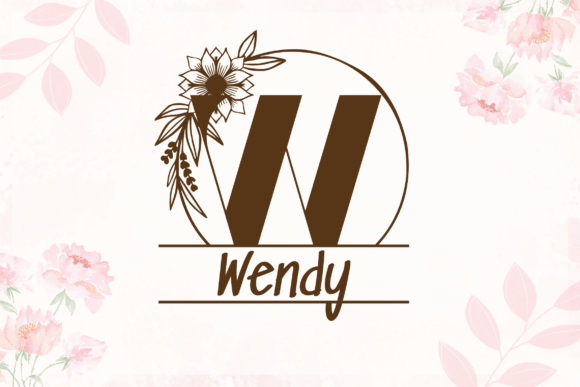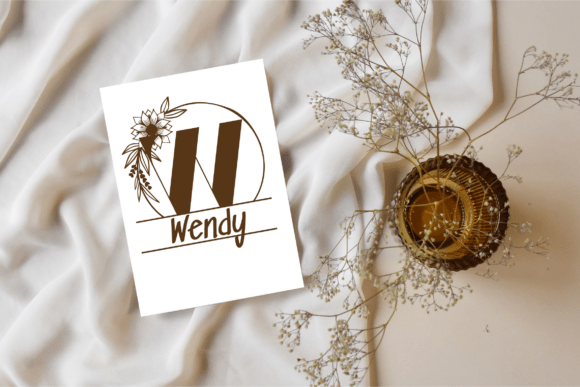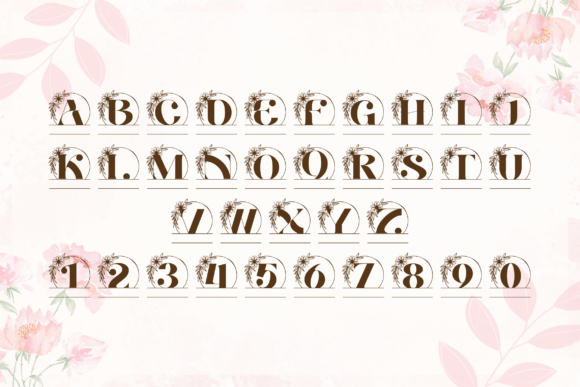
A Delicate Touch of Elegance: The Aventine Floral Line Monogram Font
As a designer, there’s a moment when you stumble upon a font that speaks to your creative soul. The lines are delicate, the details are intricate, and it’s as if the font is whispering your next great idea. For me, that moment came when I discovered the Aventine Floral Line Monogram Font – a refined decorative serif font that combines minimalist line art with the beauty of nature.
This stunning font is designed specifically for modern monograms, wedding branding, and luxury logos. Its unique blend of elegance and botanical elements makes it the perfect choice for designers seeking a sophisticated and timeless look. Whether you’re creating a wedding logo, personal monogram, or upscale packaging, the Aventine Floral Line Monogram Font is sure to bring a touch of refinement and sophistication to your designs.
Aventine Floral Line Monogram Font Key Features
- Unique Characteristics: Features elegant floral motifs and intricate details, perfect for creating luxurious and sophisticated designs.
- Monogram Options: Offers a range of monogram styles, including single-letter, multi-letter, and custom designs, allowing for endless creative possibilities.
- Script and Decorative Elements: Includes a variety of script and decorative elements, such as swashes, flourishes, and ornaments, to add an extra touch of elegance.
Aventine Floral Line Monogram Font Review
Overall, I have mixed feelings about the Aventine Floral Line Monogram Font. Here’s what works well for me: ✨ The font’s aesthetic is elegant and sophisticated, making it perfect for high-end branding and luxury designs. ✨ The monogram style adds a touch of exclusivity and personalization. ✨ The font is also highly customizable, allowing me to adjust the size, color, and other elements to fit my design needs.
However, I do have some concerns: ⚠️ The font’s complexity may make it difficult to pair with other fonts, which could limit its versatility. ⚠️ The high-end feel may not be suitable for all types of designs or brands. ⚠️ The font’s customization options can also be overwhelming, especially for designers who are new to monogram fonts.
Here are some specific pros and cons:
- ✨ Elegant and sophisticated aesthetic
- ✨ Monogram style adds exclusivity and personalization
- ✨ Highly customizable
- ⚠️ Difficult to pair with other fonts
- ⚠️ May not be suitable for all types of designs or brands
- ⚠️ Customization options can be overwhelming
Overall, I think the Aventine Floral Line Monogram Font is a solid choice for high-end designs, but may not be the best fit for all projects. With careful consideration and planning, it can be a beautiful addition to any design.
Tip: Use the Aventine Floral Line Monogram Font to add a touch of elegance to your wedding invitations or special occasion stationery.
Tip: Use the Aventine Floral Line Monogram Font to create custom monograms or initials for your branding or design projects.
Tip: Use the Aventine Floral Line Monogram Font to add a touch of sophistication to your presentations or documents.
The Aventine Floral Line Monogram Font is commonly used for:
- Special occasion cards and invitations
- Custom monograms
What is the recommended font size for using the Aventine Floral Line Monogram Font?
The Aventine Floral Line Monogram Font is designed to be used at medium to large font sizes, typically between 18pt and 48pt. Using the font at smaller sizes may result in reduced legibility and clarity.